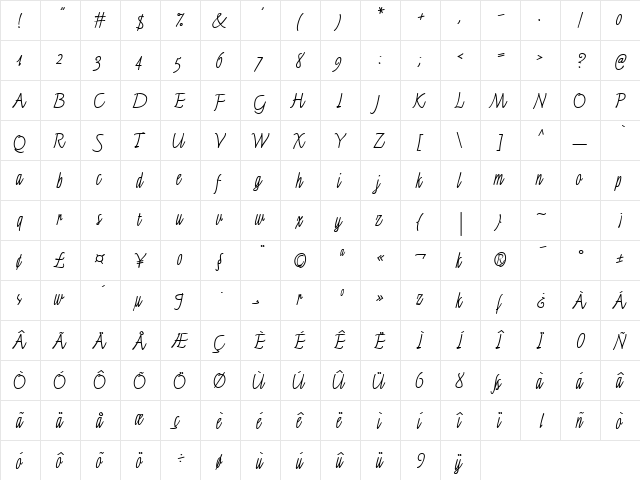
Saphire Light Script Regular Free Font
Saphire Light Script Regular
Design Context for Saphire Light Script
Saphire Light Script flows with the natural rhythm of handwritten lettering, making it ideal for designs that call for warmth and personal expression. Its slender proportions lend an understated elegance to any composition.
Font Pairing: Combine Saphire Light Script with a simple geometric sans for maximum contrast - the tension between flowing curves and clean structure is a classic typographic pairing.
Pro Tip: Use Saphire Light Script for short runs of text - names, titles, or taglines. Extended body copy in script faces tires the eye quickly.